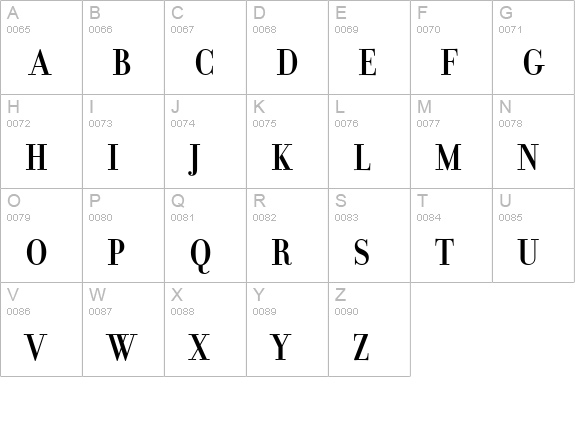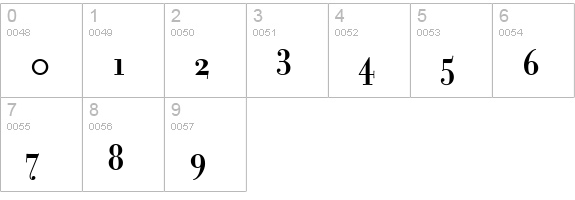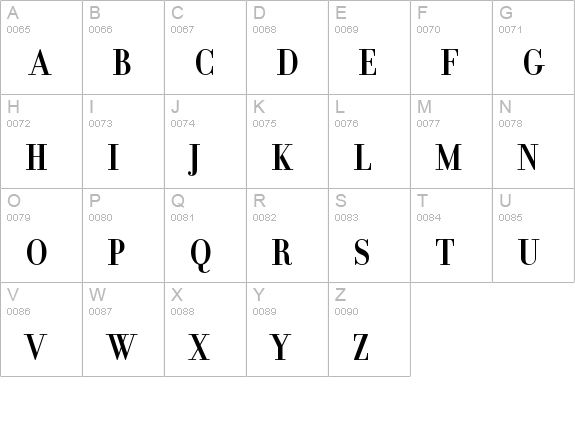
FilosofiaGrand-Bold Font Details
FilosofiaGrand-Bold is a strong, high-contrast variant in the FilosofiaGrand typeface family \xE2\x80\x94 well suited to headlines, attention-grabbing titles, and strong calls-to-action.
FilosofiaGrand-Bold is a striking and sophisticated font that exudes elegance and modernity. With its bold and prominent design, it commands attention and makes a statement in any project. The sharp lines and clean edges give it a contemporary look that is both professional and stylish. This font is perfect for headlines, titles, and branding materials that require a strong and impactful presence. Its versatility allows it to be used in various design projects, from print materials to digital presentations. FilosofiaGrand-Bold is not only visually appealing but also highly functional, ensuring readability and legibility even at larger sizes. Whether you are designing a poster, a logo, or a website, this font will elevate your work to a new level of sophistication. Best of all, FilosofiaGrand-Bold is available for free download at FontsMarket.com. Don't miss out on this opportunity to add a touch of elegance to your designs with this beautiful font.